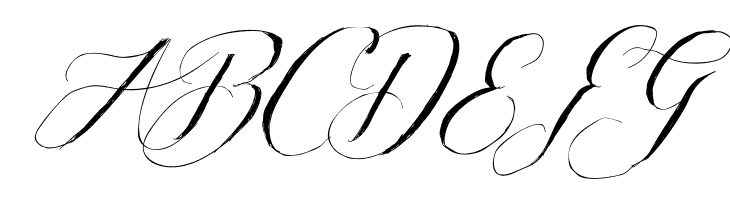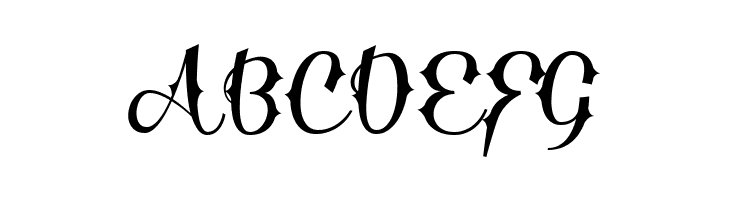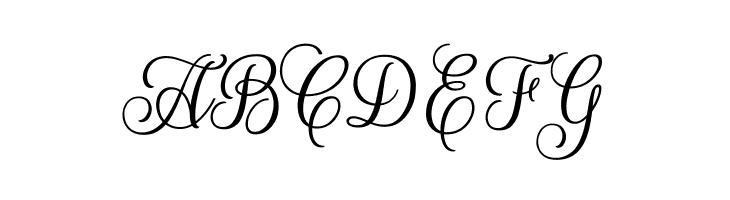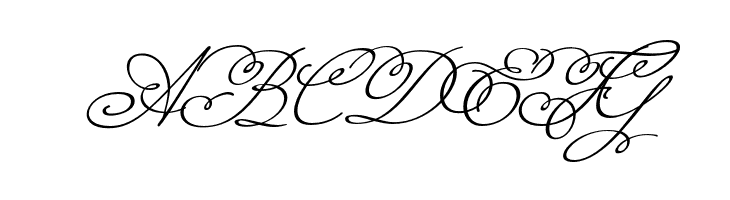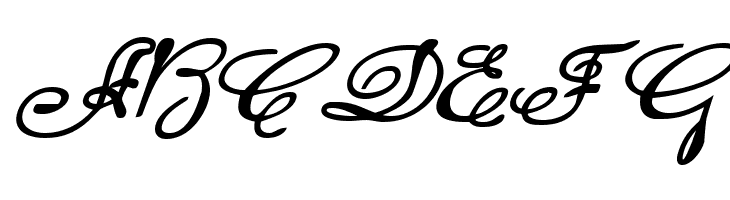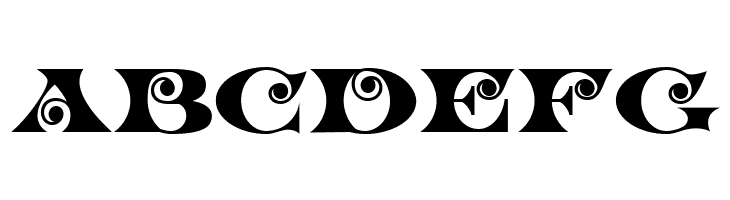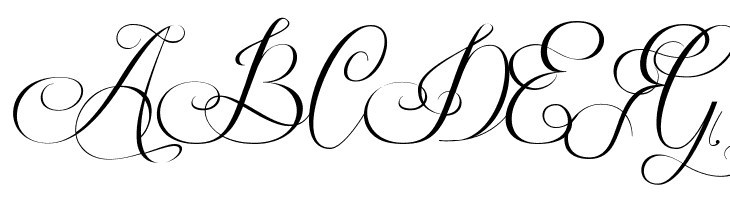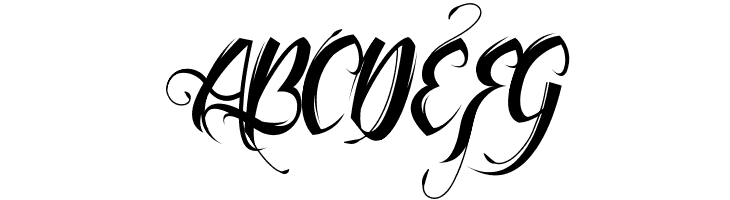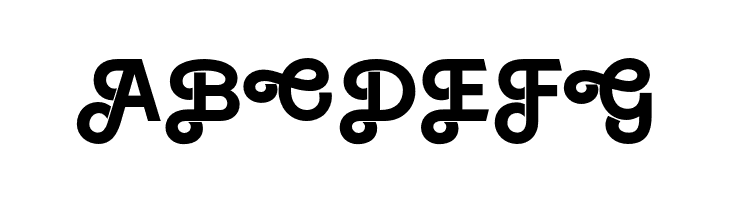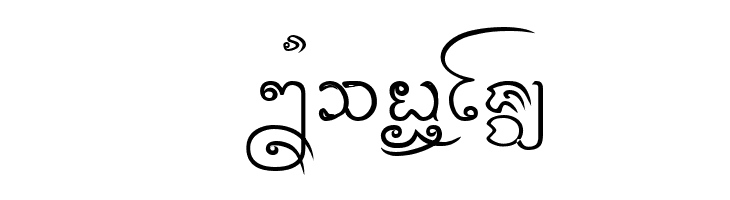
An elegant script font with ornate swashes and high contrast strokes.
An elegant script font with flowing, interconnected letters and intricate swashes.
An ornate script font with elaborate swashes and decorative elements.
An elegant script font with flowing, cursive letters and intricate swashes.
An elegant script font with intricate swashes and flowing lines.
A whimsical and elegant font with decorative swashes and curls.
An elegant script font with decorative swashes and fluid letterforms.
A bold, expanded, and italic script font with elegant curves and swashes.
An elegant and dramatic script font with intricate swashes and flourishes.
A decorative font with bold, swirling spiral swashes and high contrast.
A decorative serif font with elegant swashes and intricate detailing.
An elegant script font with intricate swashes and decorative flourishes.
A bold, cursive script with playful, interconnected letters and elegant swashes.
An elegant serif font with decorative swashes and a classic style.
An ornate script font with elegant swashes and decorative flourishes.
An elegant script font with intricate swashes and a calligraphic style.
An elegant, decorative script font with intricate swashes and high contrast.
A decorative font with swashes and bold, clean lines.
An ornate, decorative font with elaborate swashes and flourishes.
An ornate, decorative font with elaborate swashes and loops.
An elegant script font with intricate swashes and decorative elements.
A bold, dynamic script font with flowing curves and decorative swashes.